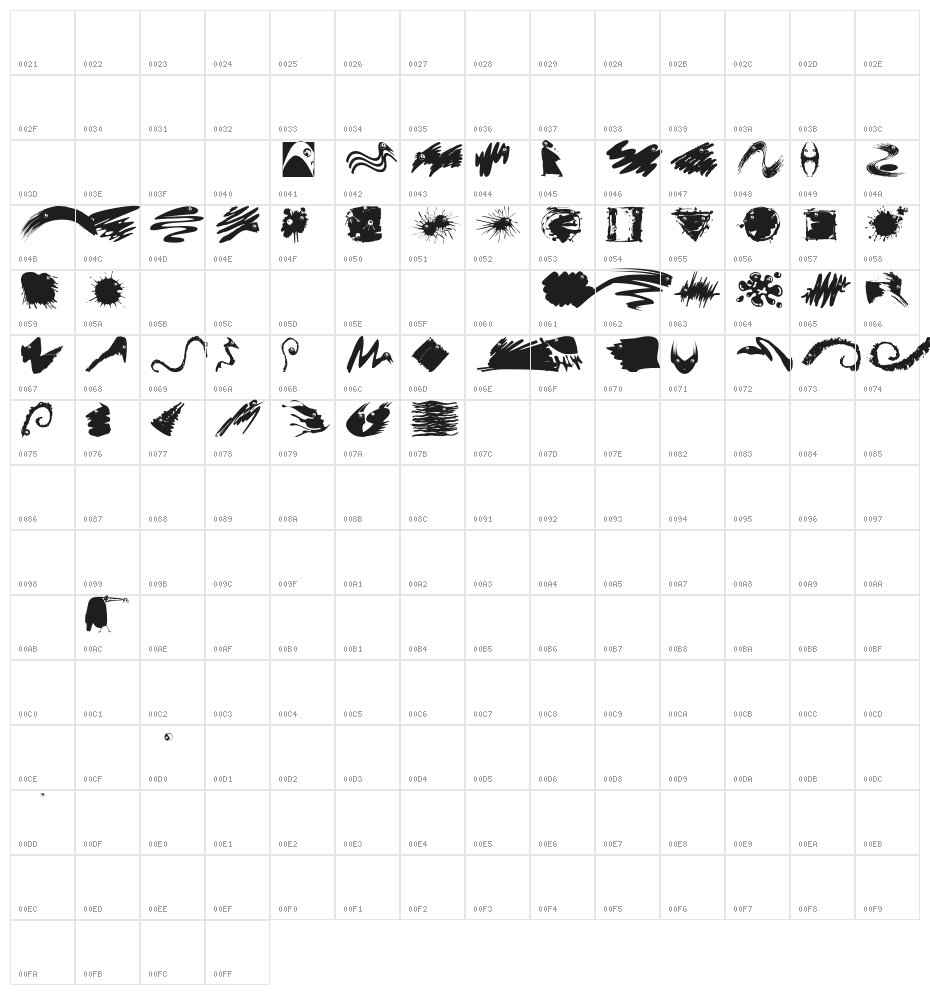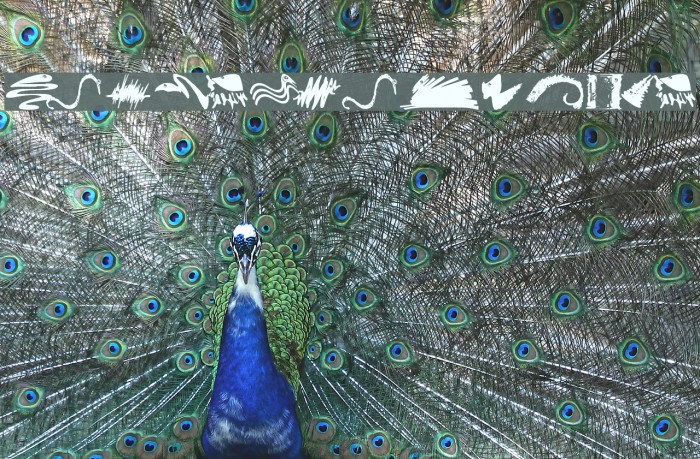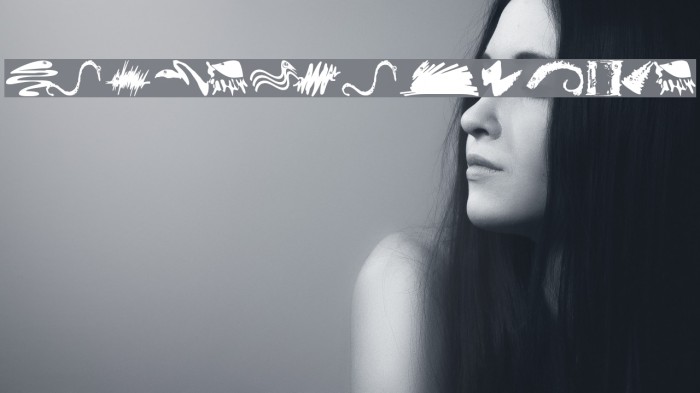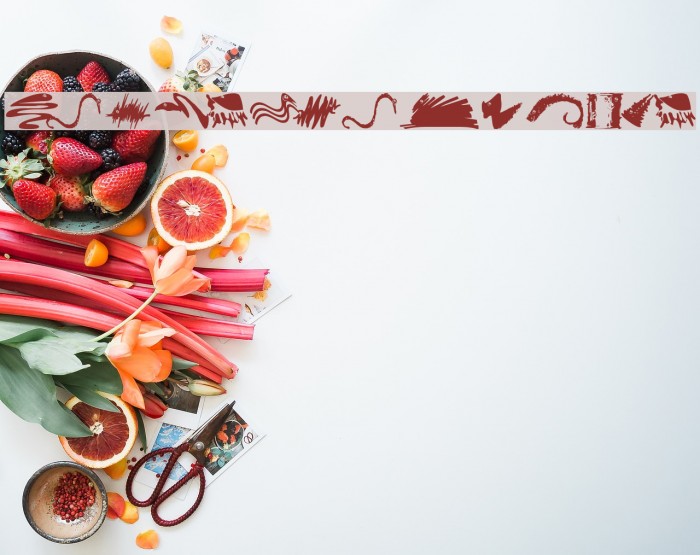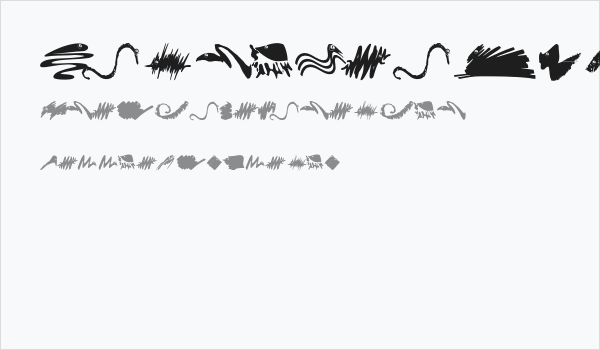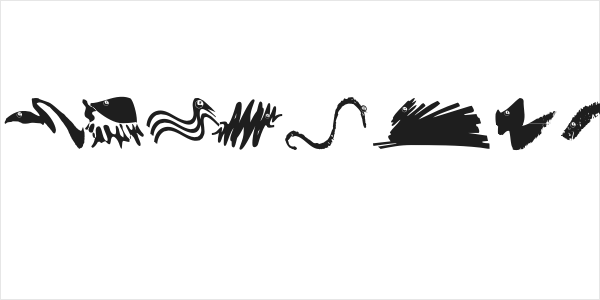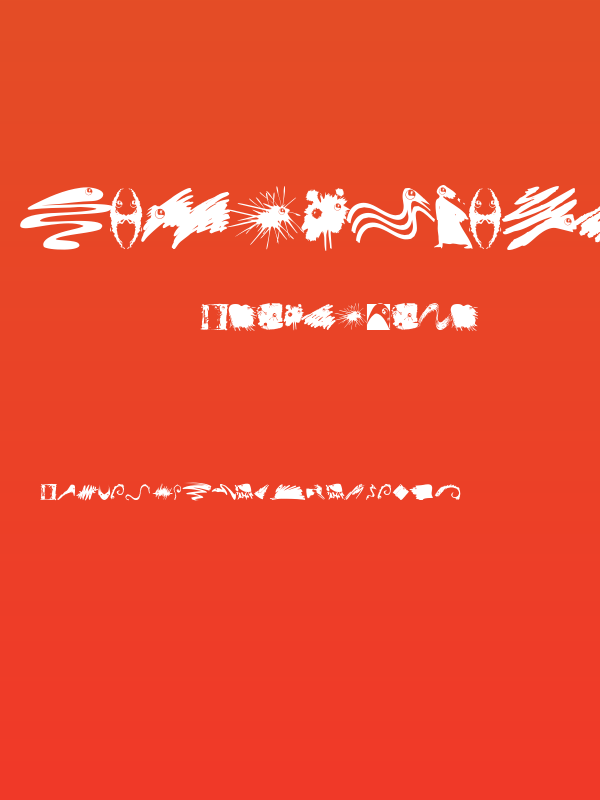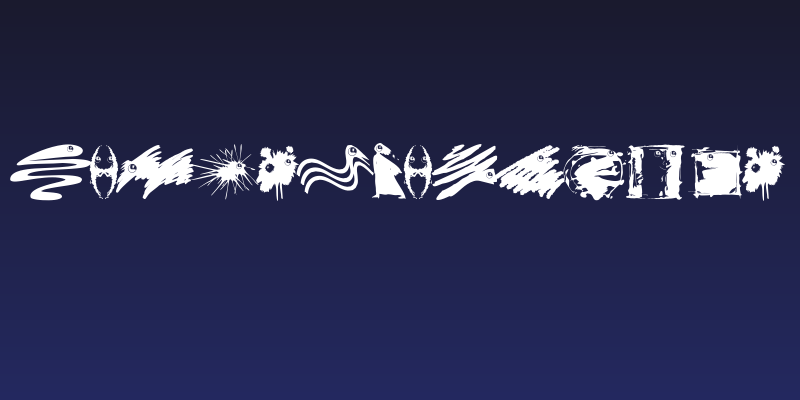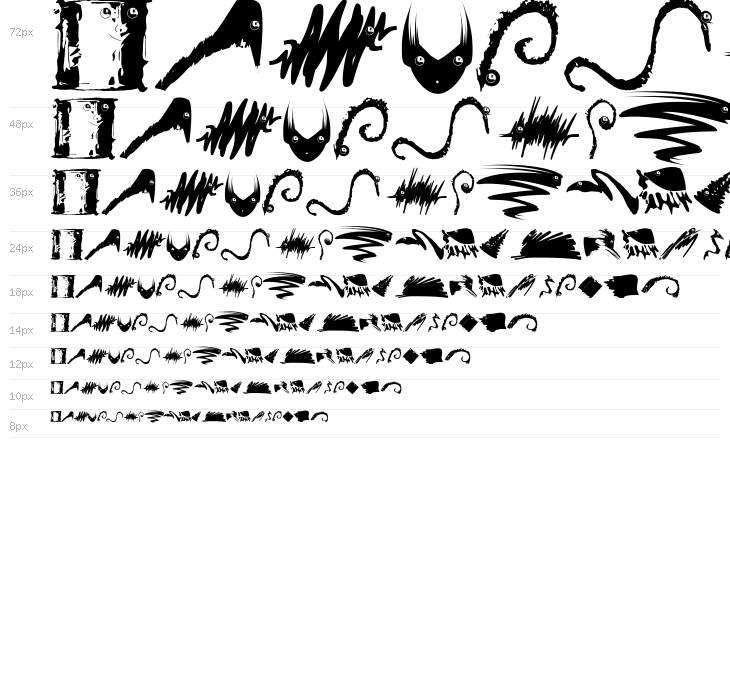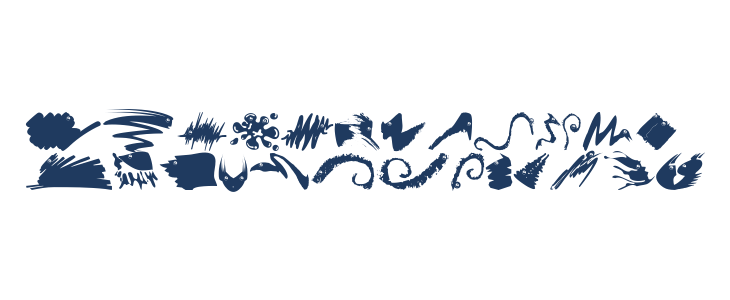
MicroBeingsTwo Font
MicroBeingsTwo Description
This font features highly abstract and artistic characters, each resembling unique organic or brushstroke forms. The design is reminiscent of abstract art or microscopic organisms, with each character having its own distinct shape and flow. The strokes are bold and dynamic, with varying thicknesses that create a sense of movement and energy. The characters do not follow traditional letterforms, making them more suitable for decorative purposes rather than readability. The overall appearance is chaotic yet visually intriguing, capturing attention with its unconventional style.
| Overall Style | Abstract, Artistic |
| Use Case | Logos, Artistic designs, Creative branding |
| Proposed Projects | Ideal for artistic projects, abstract art pieces, experimental design work, and creative branding that seeks to stand out with unique visual elements. |